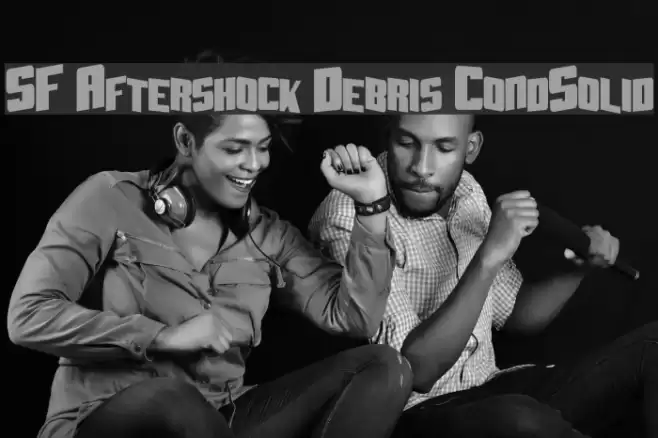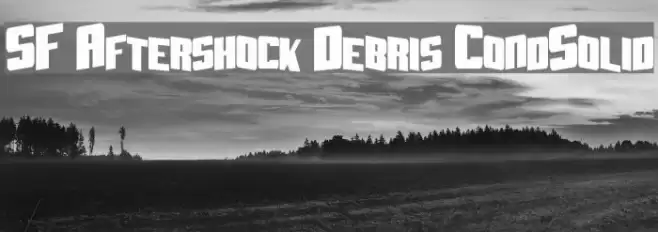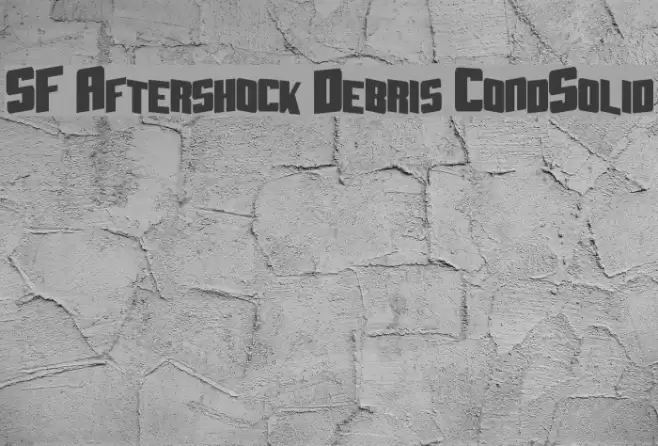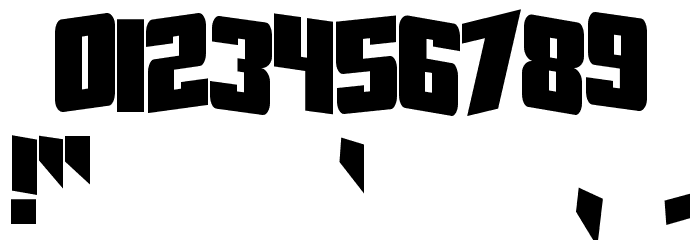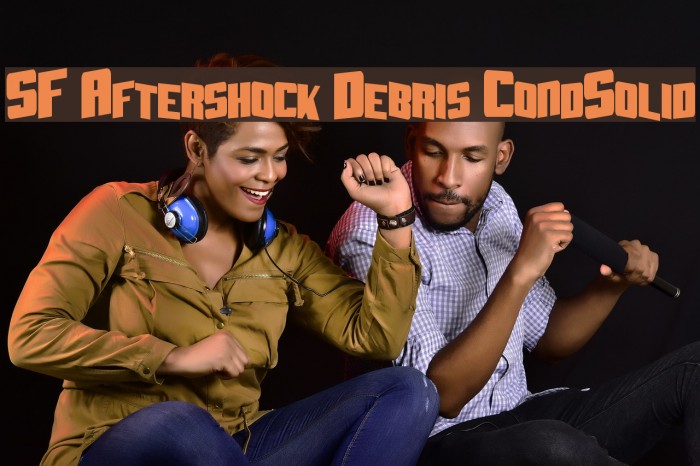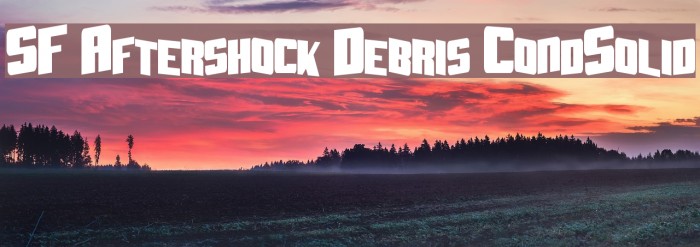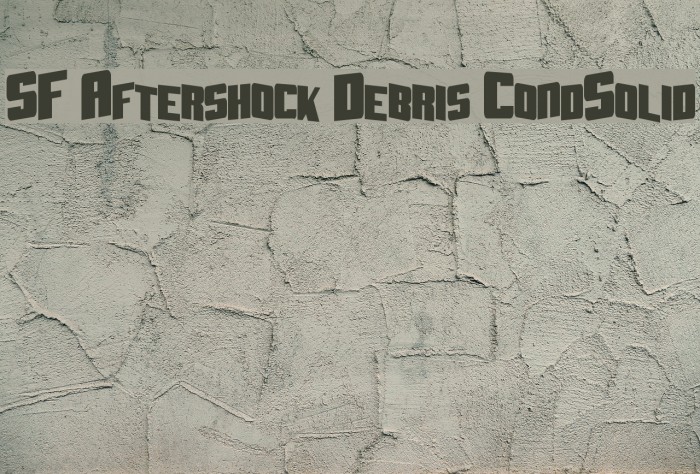
SF Aftershock Debris CondSolid Font
SF Aftershock Debris CondSolid Description
This font features a bold and impactful design with a distinctly angular and geometric style. The characters are heavily condensed, giving them a compact appearance that emphasizes their solid and robust nature. The uppercase letters exhibit a uniform height, while the numbers maintain a consistent width, ensuring a cohesive look across different text elements. The font's sharp edges and strong lines create a sense of movement and energy, making it ideal for attention-grabbing headlines and titles. Its unique style is reminiscent of urban and industrial themes, providing a modern and edgy aesthetic.
A bold, angular, and condensed font with a geometric style, perfect for impactful headlines from Crazy fonts.
- Proposed Projects: Ideal for use in posters, logos, branding materials, and any project requiring a strong visual impact.
- Character Spacing: Tight